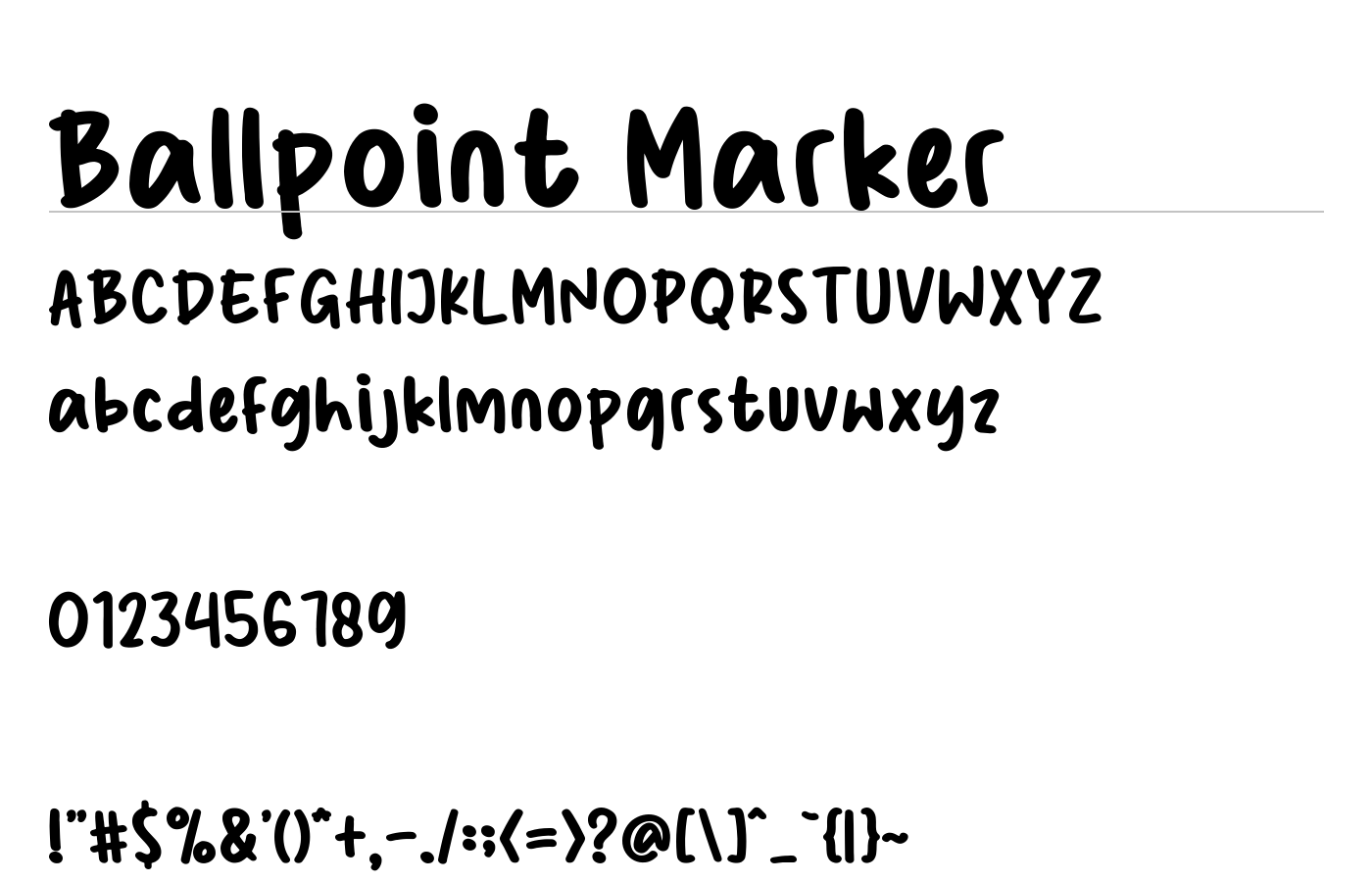
Ballpoint Marker is a casual, handwritten sans serif font that mimics the look of writing with a thick marker pen. It features rounded, playful letterforms with a medium weight and consistent stroke width, creating an approachable and friendly vibe. This font is perfect for informal designs, such as invitations, posters, and branding that seek a relaxed, personal touch.
Ballpoint Marker Font
About Ballpoint Marker Font
| Font family | Ballpoint Marker Font |
| Designer | Stefie Justprince |